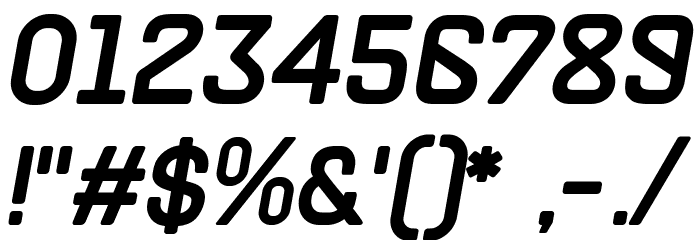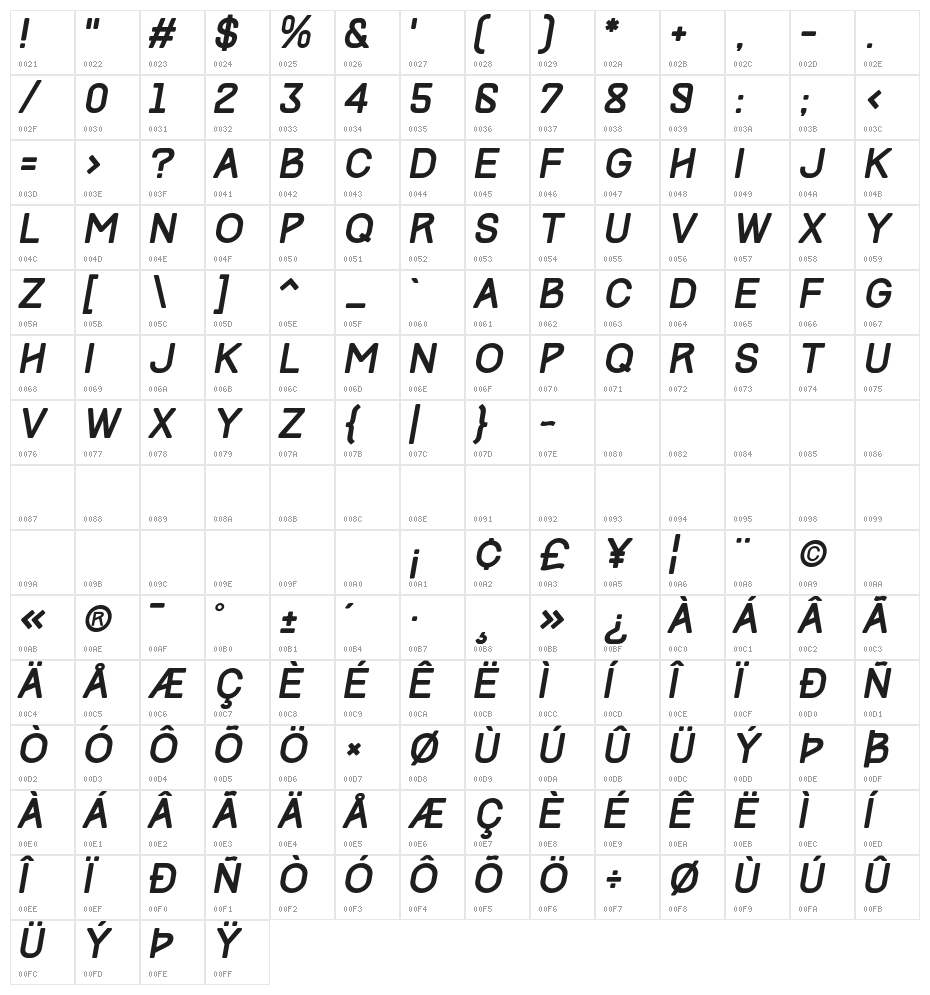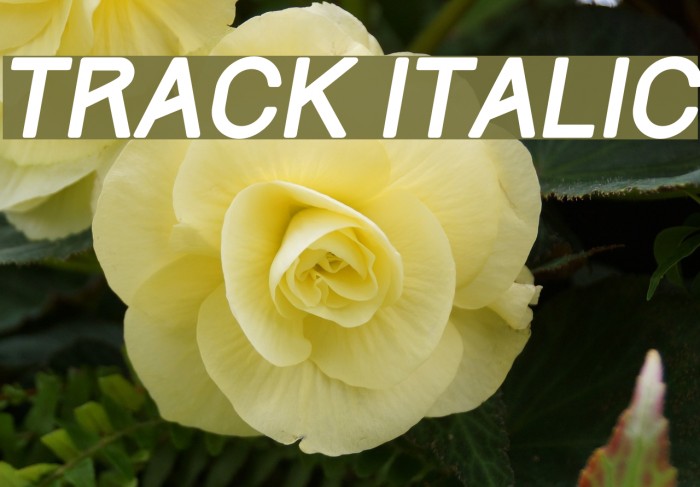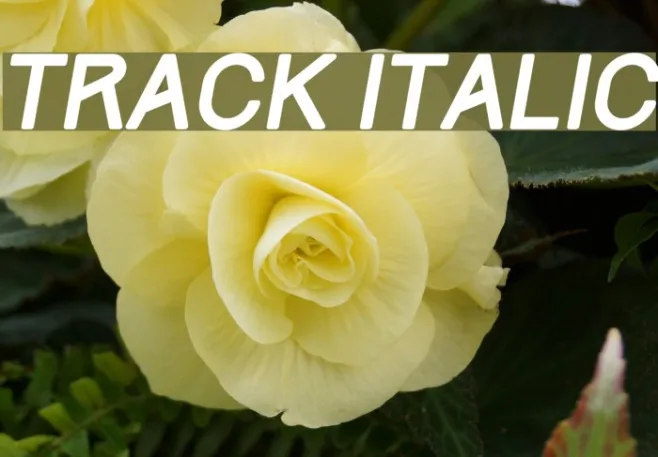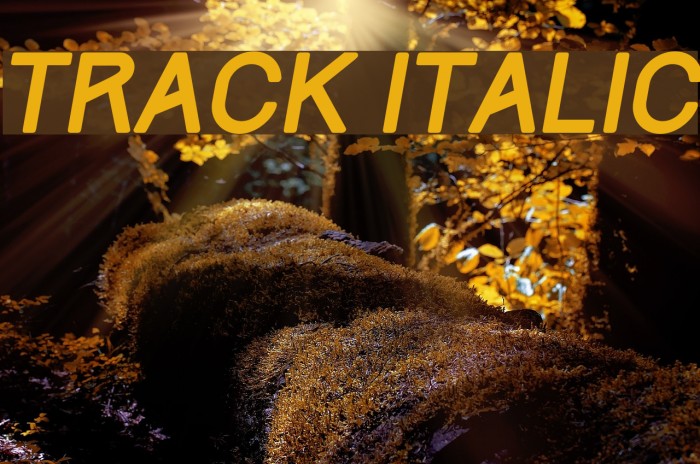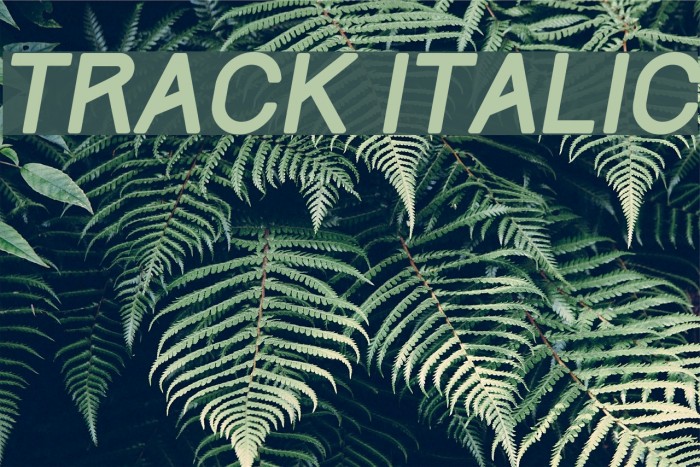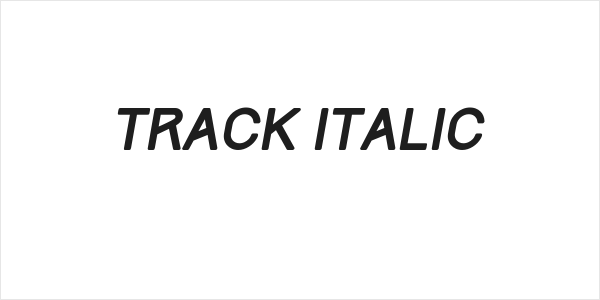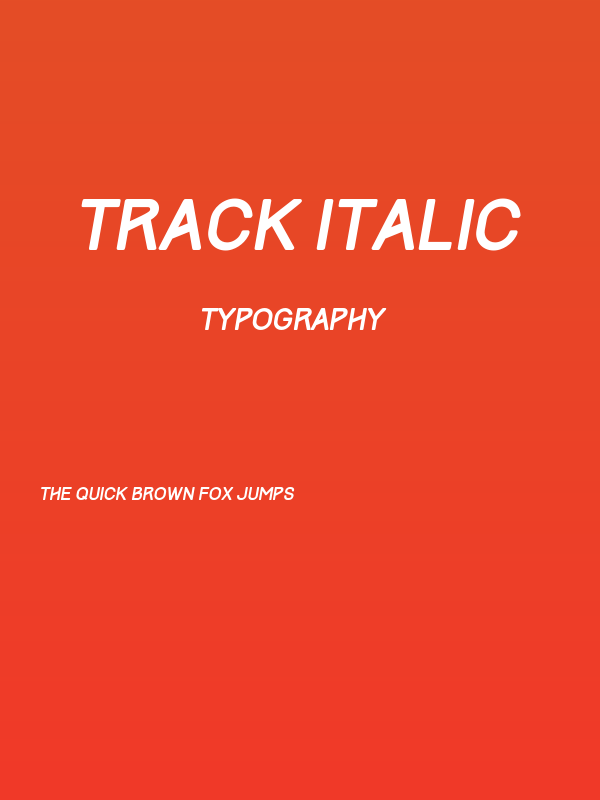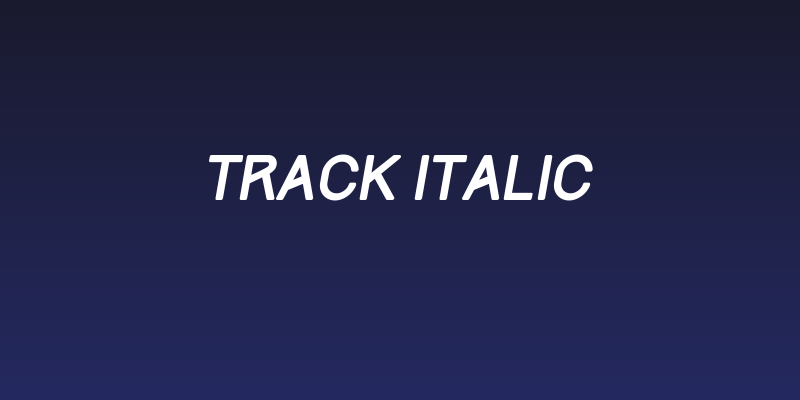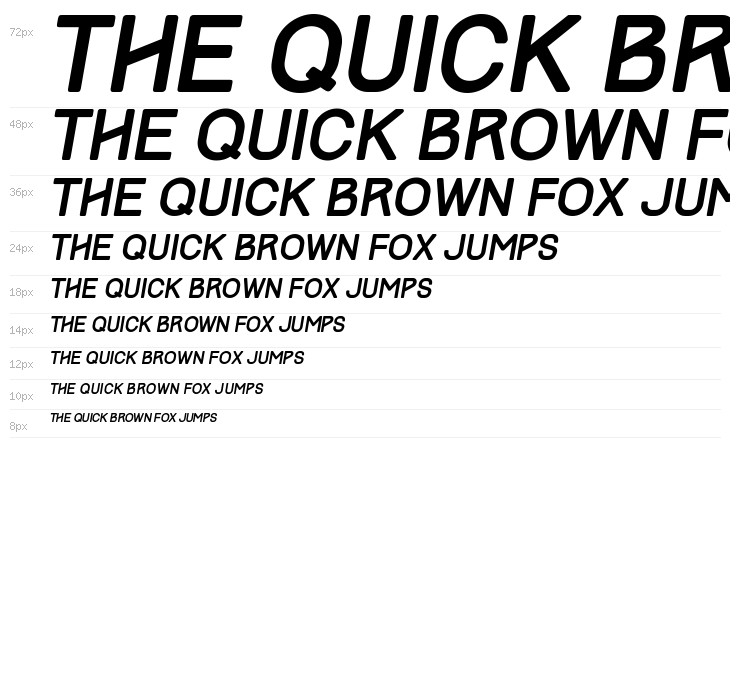
Track Italic Font
Track Italic Description
This font features a dynamic and modern italic style, characterized by its slanted and streamlined letterforms. The design is sleek and contemporary, with smooth curves and a consistent stroke width that gives it a cohesive appearance. The characters are slightly condensed, enhancing the sense of motion and speed. This font is well-suited for projects that require a sense of energy and modernity, such as sports branding, automotive designs, or tech-related materials. The numerals are clear and distinct, making them suitable for use in data visualization or digital interfaces. Special characters are included, maintaining the font's overall aesthetic.